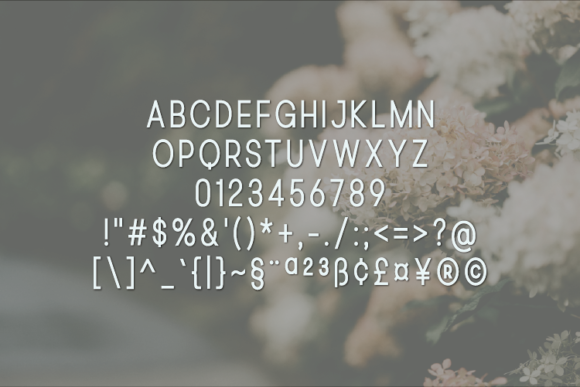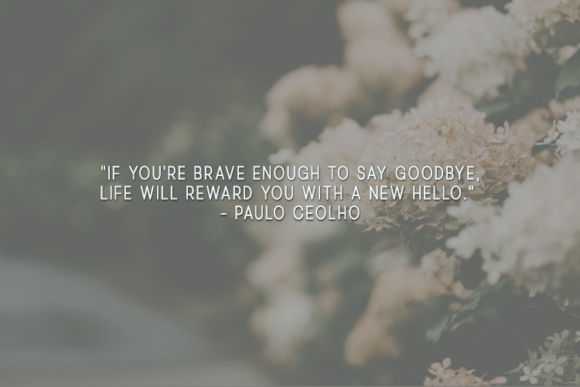
Introducing Arthive Font: The Ultimate Sans Serif for Creative Projects
Are you a designer or crafter looking for a font that can elevate your creative projects to the next level? Look no further than Arthive Font, a simple and adaptable sans serif font that can be matched to an incredibly large set of projects. In this article, we’ll dive into the world of Arthive Font and explore its features, benefits, and uses.
What is Arthive Font?
Arthive Font is a modern sans serif font designed to be versatile and easy to use. Its clean lines and simple shapes make it perfect for a wide range of projects, from digital designs to print materials. Whether you’re creating a logo, brochure, or website, Arthive Font is an excellent choice.
Key Features of Arthive Font
- Simple and Adaptable: Arthive Font is designed to be simple and adaptable, making it easy to pair with other fonts and design elements.
- Sans Serif: The font features a clean and modern sans serif design, perfect for digital and print materials.
- Highly Versatile: Arthive Font can be used in a wide range of projects, from logos and branding to websites and marketing materials.
- Easily Readable: The font is highly legible, making it perfect for body text and headlines.
Benefits of Using Arthive Font
So, why choose Arthive Font for your creative projects? Here are just a few benefits:
- Universal Compatibility: Arthive Font can be used on a wide range of devices and platforms, ensuring that your designs look great everywhere.
- Easy to Pair: The font’s simple design makes it easy to pair with other fonts and design elements, giving you endless creative possibilities.
- Time-Saving: With Arthive Font, you can create professional-looking designs quickly and easily, saving you time and effort.
- Unique and Creative: The font’s modern design ensures that your projects will stand out from the crowd and grab attention.
Who Can Use Arthive Font?
Arthive Font is perfect for a wide range of designers and crafters, including:
- Graphic Designers: Use Arthive Font to create stunning logos, brochures, and marketing materials.
- Web Designers: Add Arthive Font to your website designs for a modern and professional look.
- Crafters: Use Arthive Font to create beautiful handmade cards, scrapbook pages, and other craft projects.
- Digital Artists: Incorporate Arthive Font into your digital art and illustrations for a unique and creative touch.
Tips for Using Arthive Font
Here are a few tips for getting the most out of Arthive Font:
- Experiment with Font Sizes: Try out different font sizes to create visual interest and hierarchy in your designs.
- Pair with Other Fonts: Combine Arthive Font with other fonts to create unique and creative typography.
- Use in Combination with Images: Pair Arthive Font with images and graphics to add depth and interest to your designs.
- Don’t be Afraid to Get Creative: Arthive Font is a versatile font that can be used in many different ways, so don’t be afraid to experiment and try new things.
In conclusion, Arthive Font is a simple and adaptable sans serif font that can elevate your creative projects to the next level. With its clean design, versatility, and ease of use, Arthive Font is perfect for designers and crafters of all levels. So why wait? Add Arthive Font to your creative toolkit today and see how it can make your projects stand out!